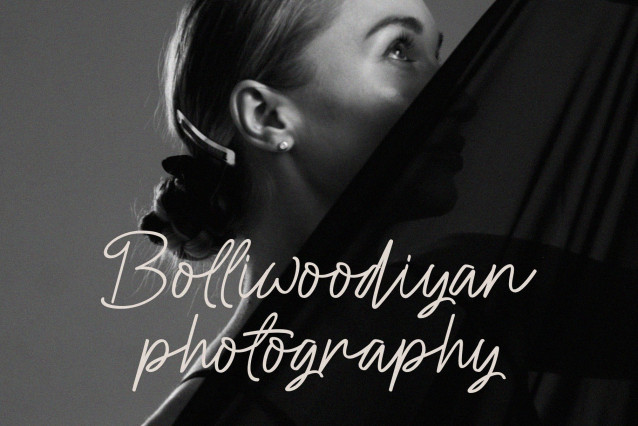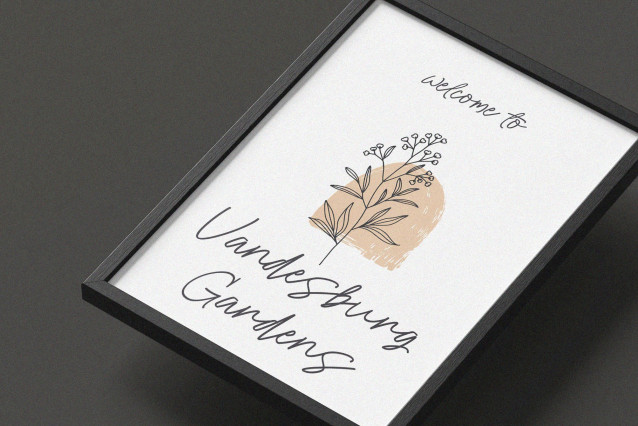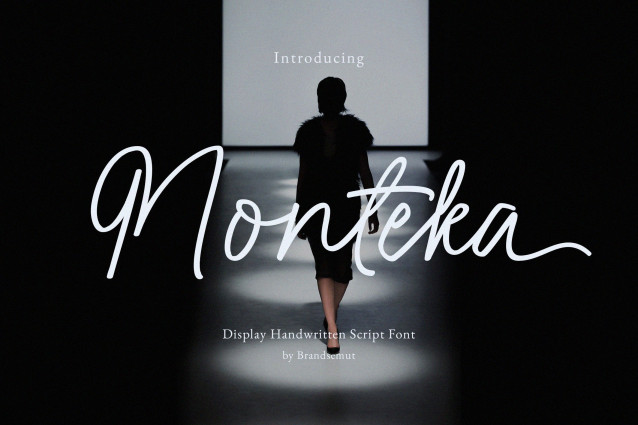
Monteka Script Font
Monteka Script Font is a elegant and stylish handwritten script, that you can use to perfect your design. You will get full set of lowercase and uppercase letters, multilingual, numerals and punctuation.